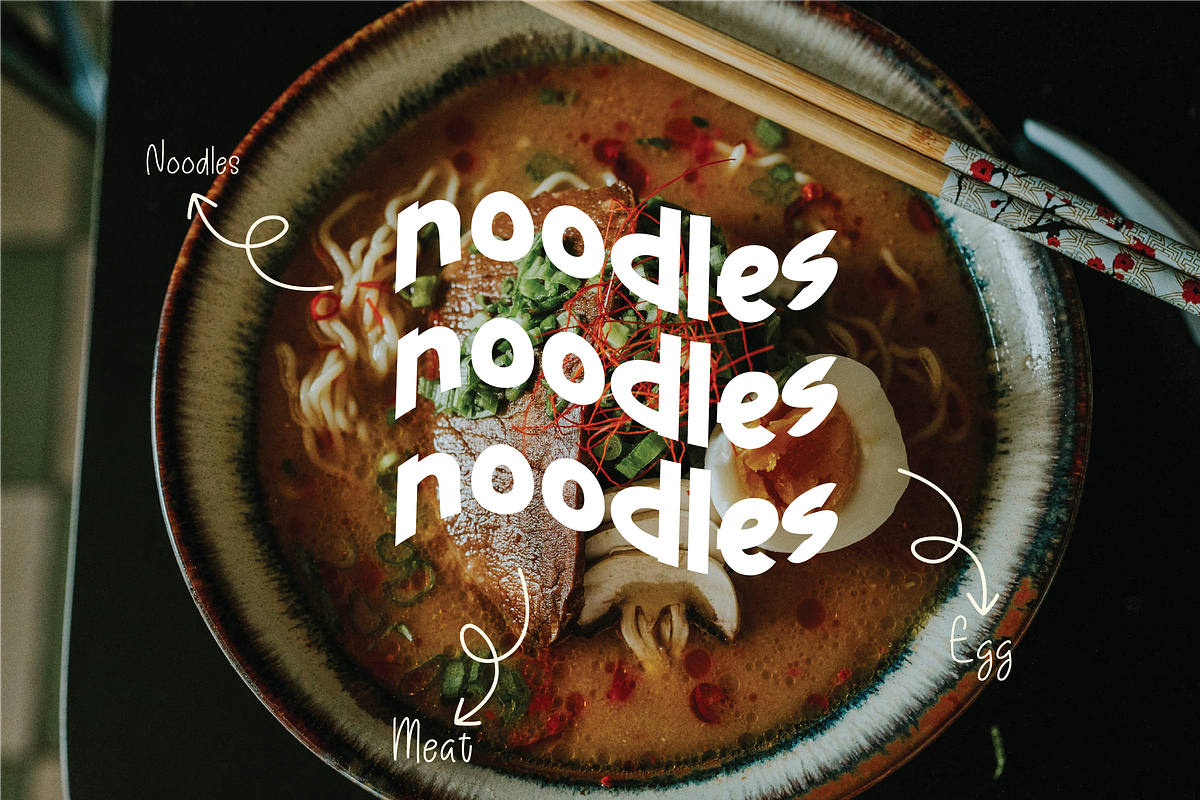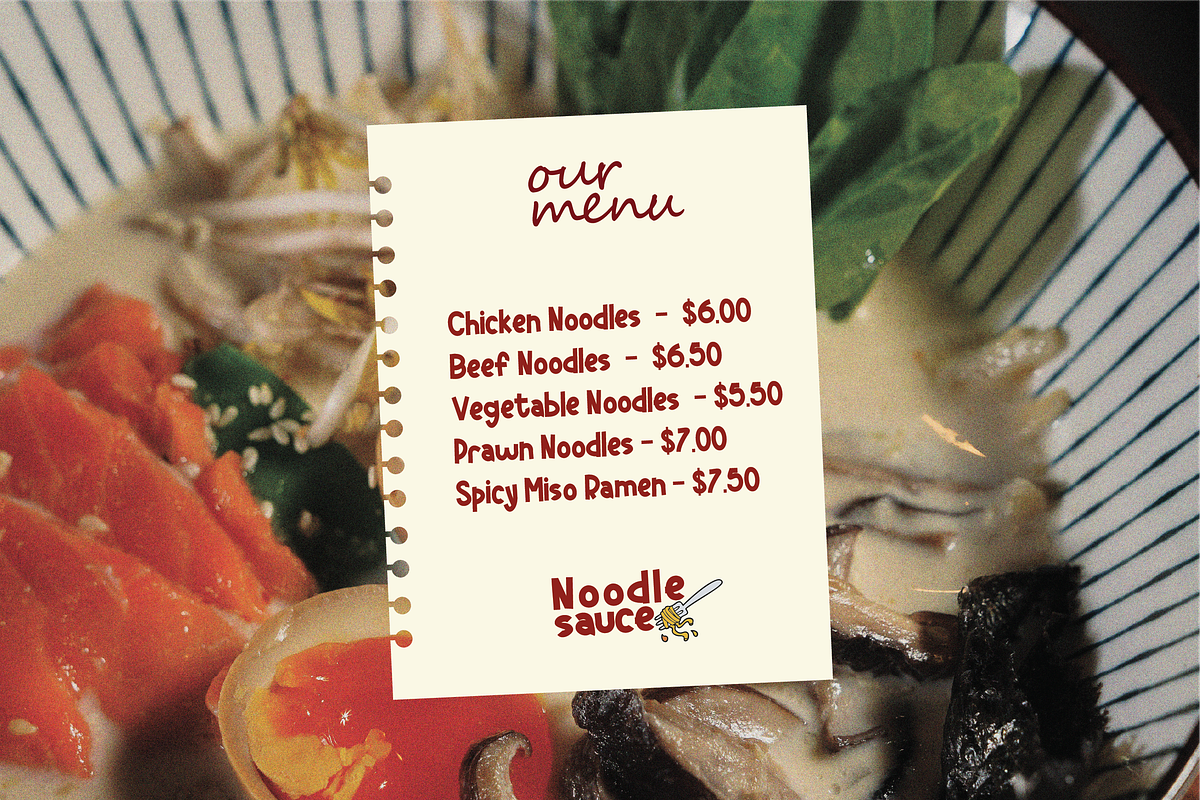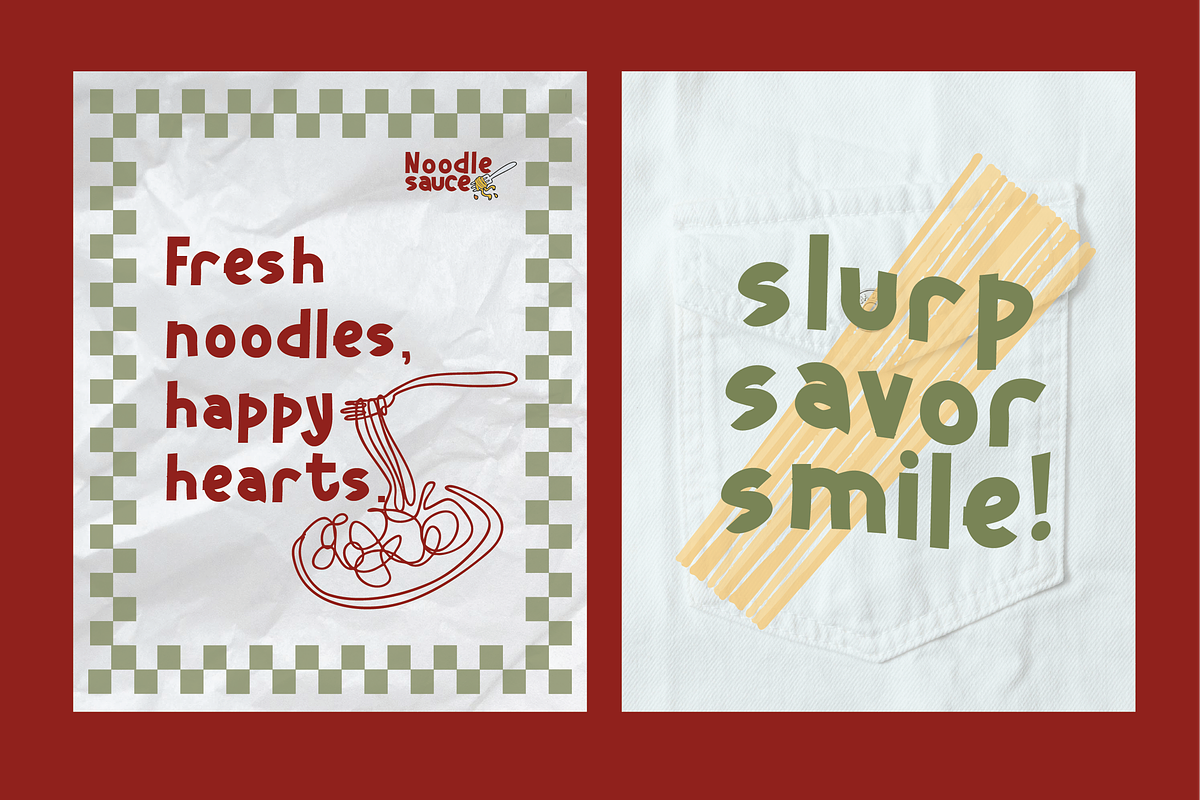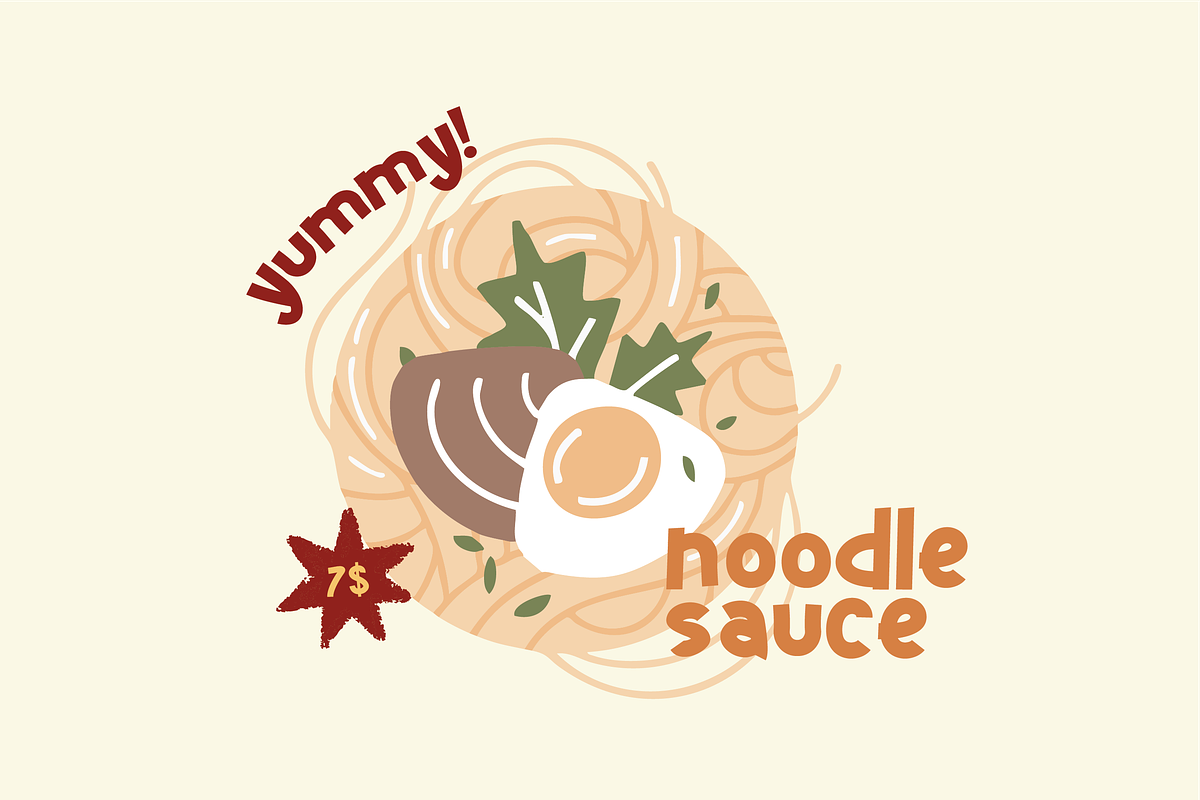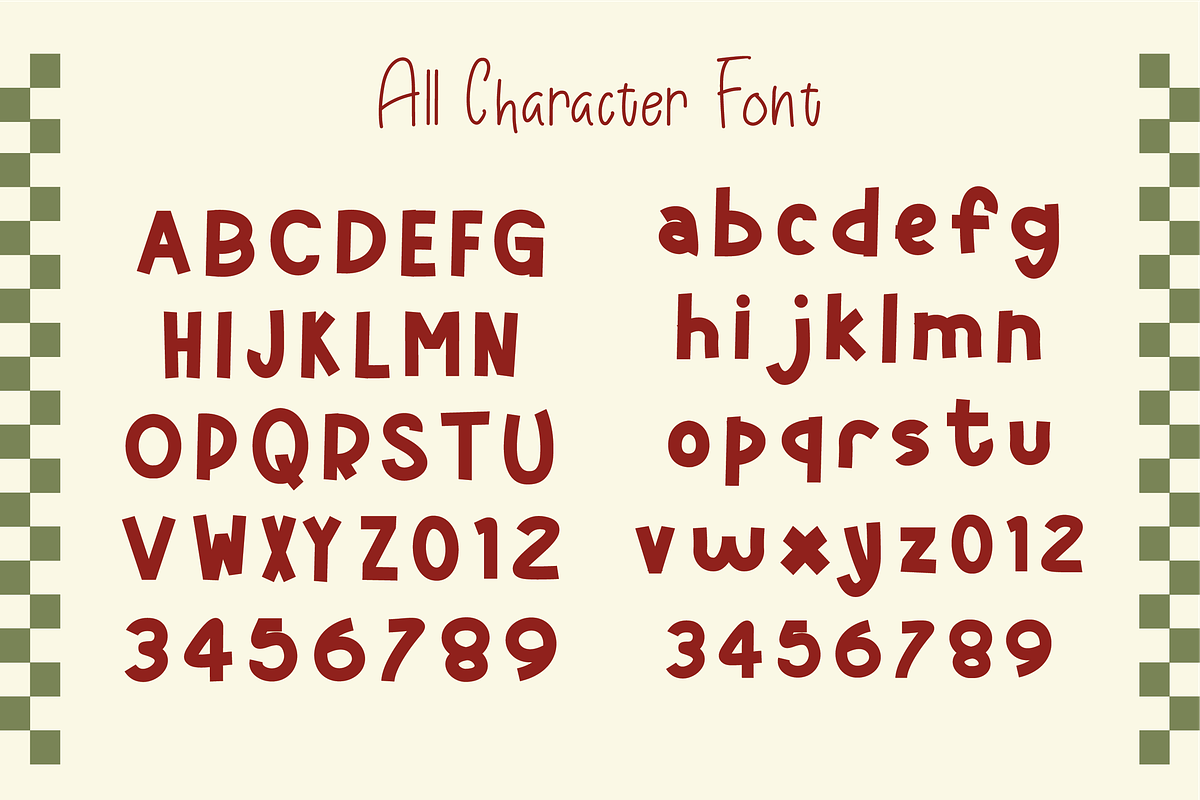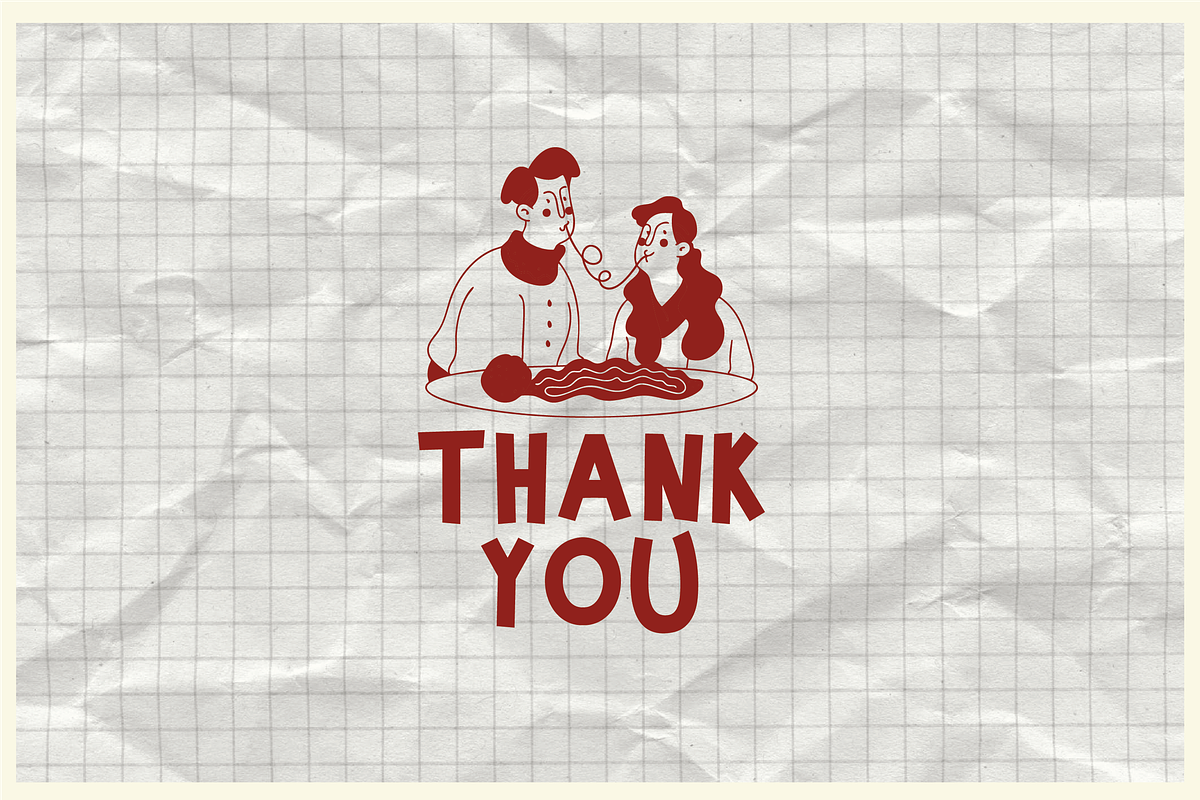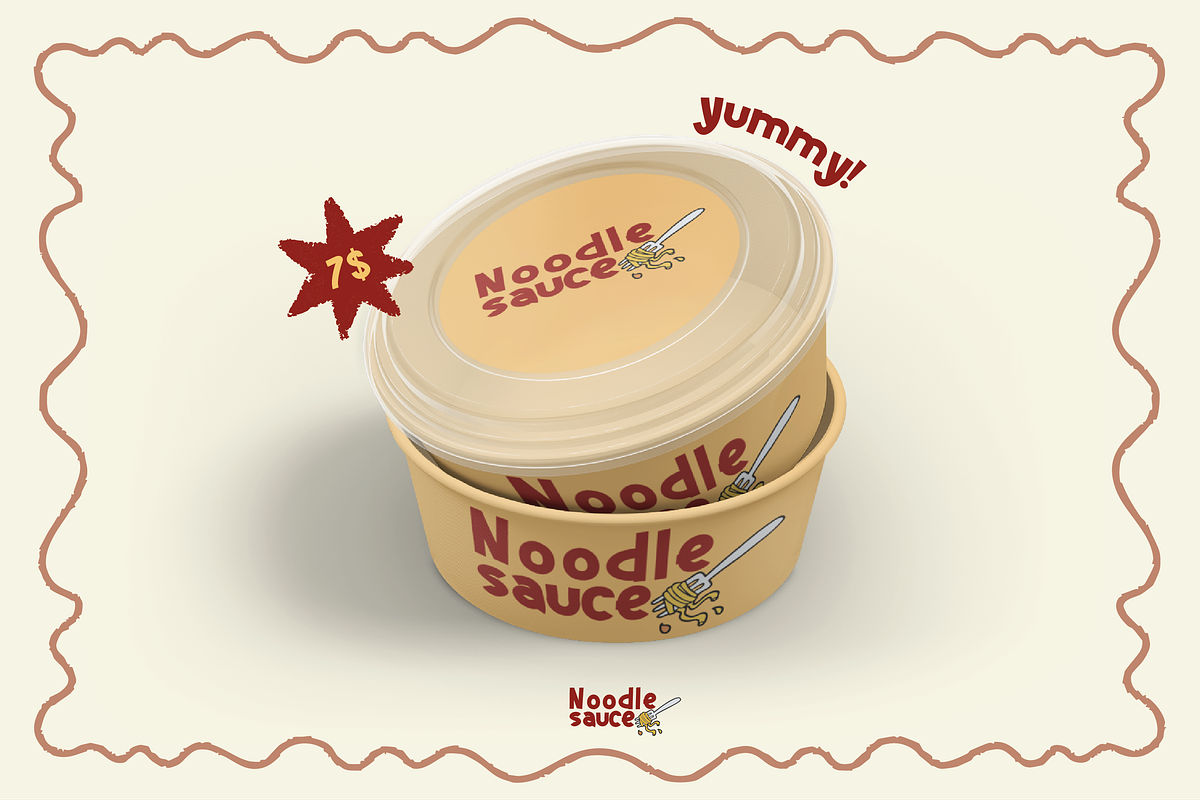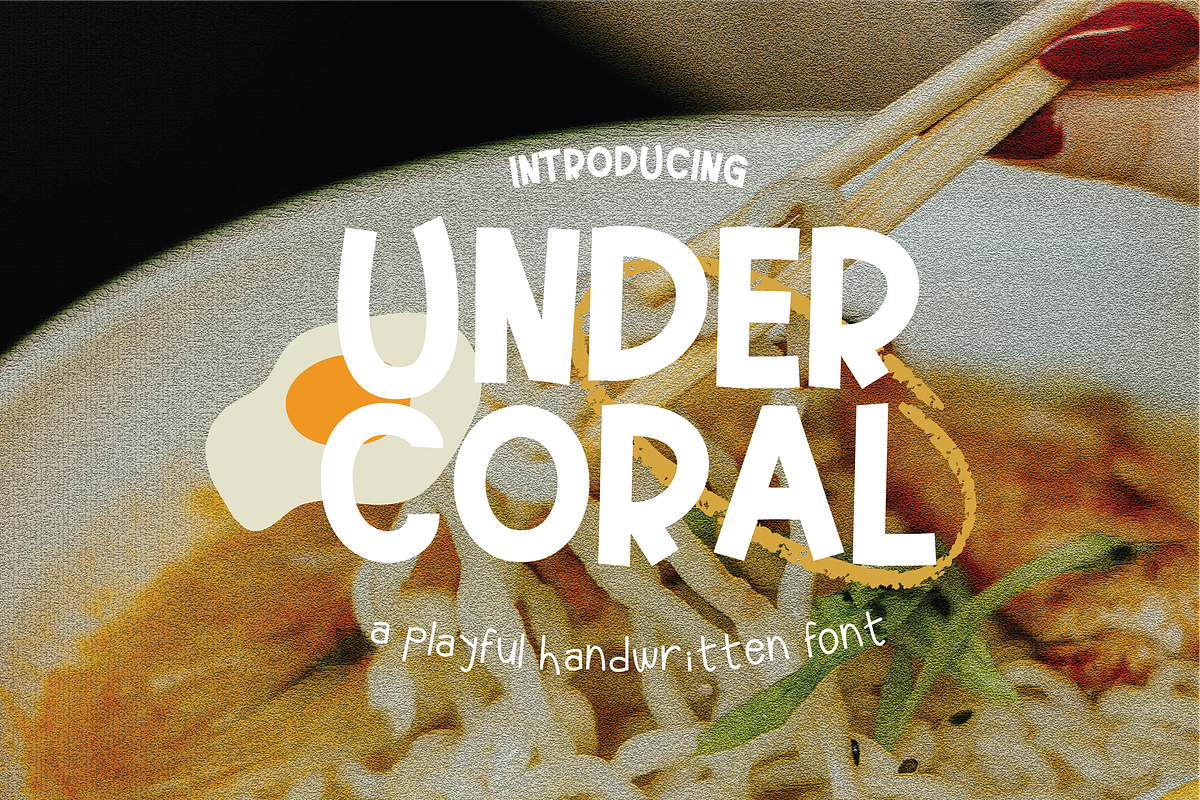
Undercoral -Playful Handwritten Font
Undercoral The font has a modern, bold, and playful design with thick, block-like letterforms. The edges are smooth, giving the text a clean, yet friendly look.
- Numbers, marks and symbols